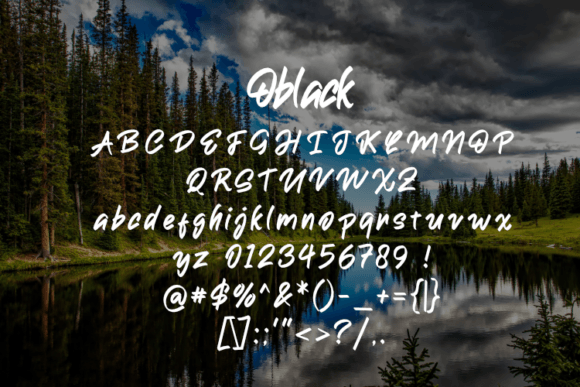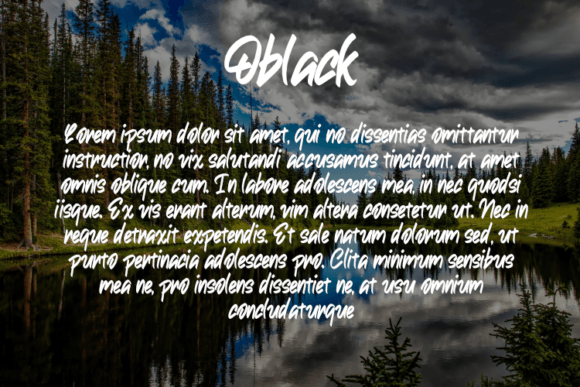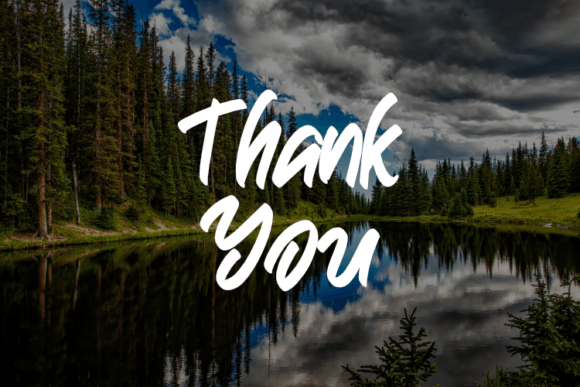
Introduction to Oblack Font
Have you ever stared at a blank design canvas, envisioning the perfect typography that will bring your creative project to life? For designers, finding the right font can be a daunting task, but what if you stumbled upon a high-quality, versatile font that’s perfect for any design application? Enter Oblack Font, the ultimate design resource that’s about to revolutionize your creative process.
Oblack Font is more than just a font – it’s a game-changer for designers who crave flexibility and adaptability in their design workflow. With its transparent background and sleek aesthetic, this font is perfect for crafting chic t-shirt prints, creating eye-catching product labeling, or even adding a touch of elegance to your branding materials. And the best part? Oblack Font is fully compatible with every software suite, making it a valuable addition to your design arsenal.
Key Features of Oblack Font
- High-quality design: Oblack Font is a premium font designed to meet the needs of creative projects, offering a unique and stylish look.
- Transparent background: This font features a transparent background, making it ideal for use on various design elements and backgrounds.
- Unique characteristics: The font features a bold and modern design, with unique letterforms and details that set it apart from other fonts.
- Perfect for creative projects: Oblack Font is ideal for use in a variety of creative projects, including graphic design, typography, and digital art.
Honest Review: Oblack Font
As a designer, I’m always on the lookout for high-quality fonts to enhance my creative projects. Recently, I had the chance to try out the Oblack Font, and I must say it’s been a pleasant experience.
Here are some of the key features that I love about the Oblack Font:
However, I did encounter a few limitations: ⚠️ The font could benefit from a wider range of character sets, and the kerning could be improved for more precise control.
Overall, I’m impressed with the Oblack Font, and I’d definitely recommend it to fellow designers. While it may not be perfect, its versatility and high-quality design make it a valuable addition to any design resource.
For a high-quality design, use Oblack Font with a transparent background. This will allow the font to stand out against any background image or color. Additionally, use Oblack Font in a creative project where its unique design can shine. This font is a valuable design resource that can elevate any design.
Oblack Font is ideal for use in logos, branding materials, and marketing materials. It’s also great for use in digital design projects, such as websites and social media graphics. With its free download and high-quality design, Oblack Font is a must-have design resource for any creative project.